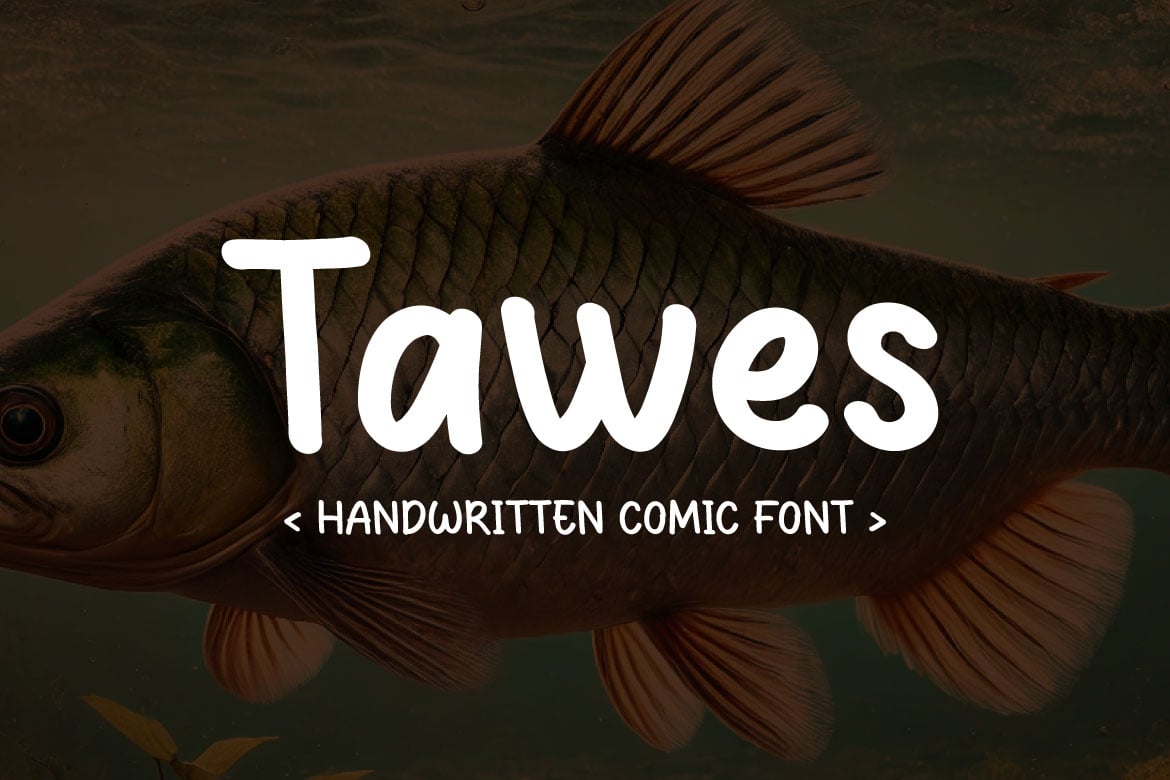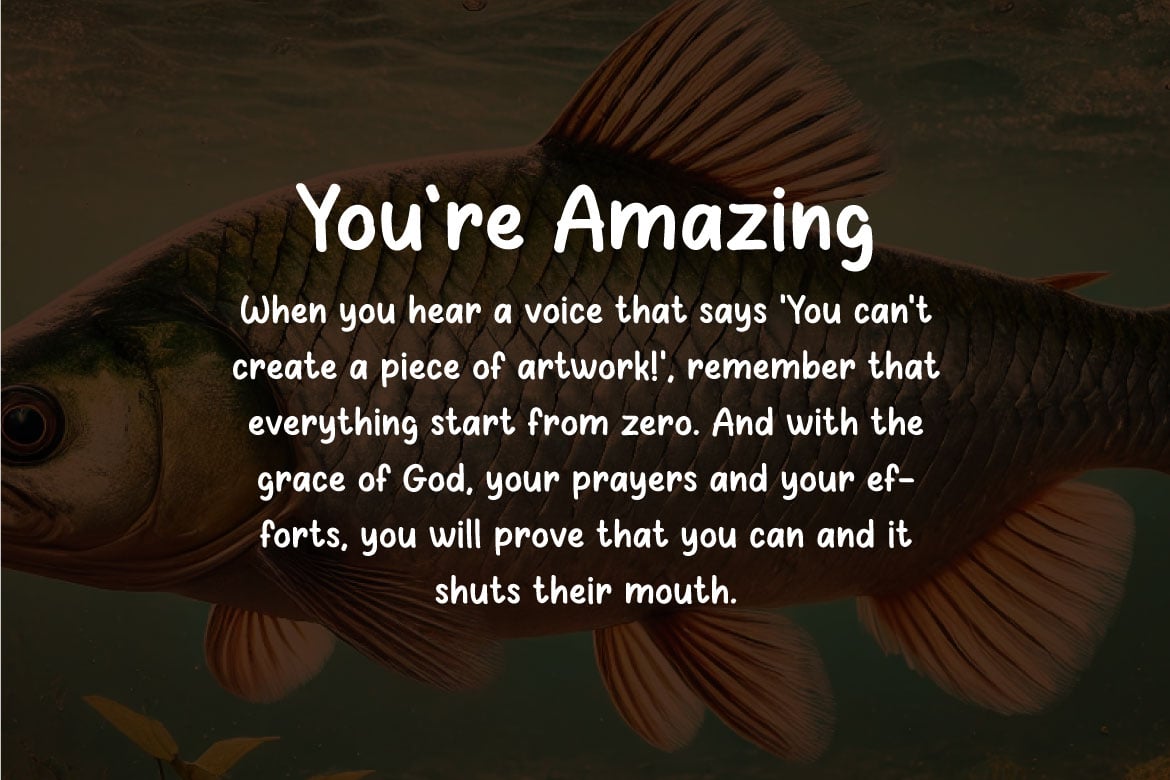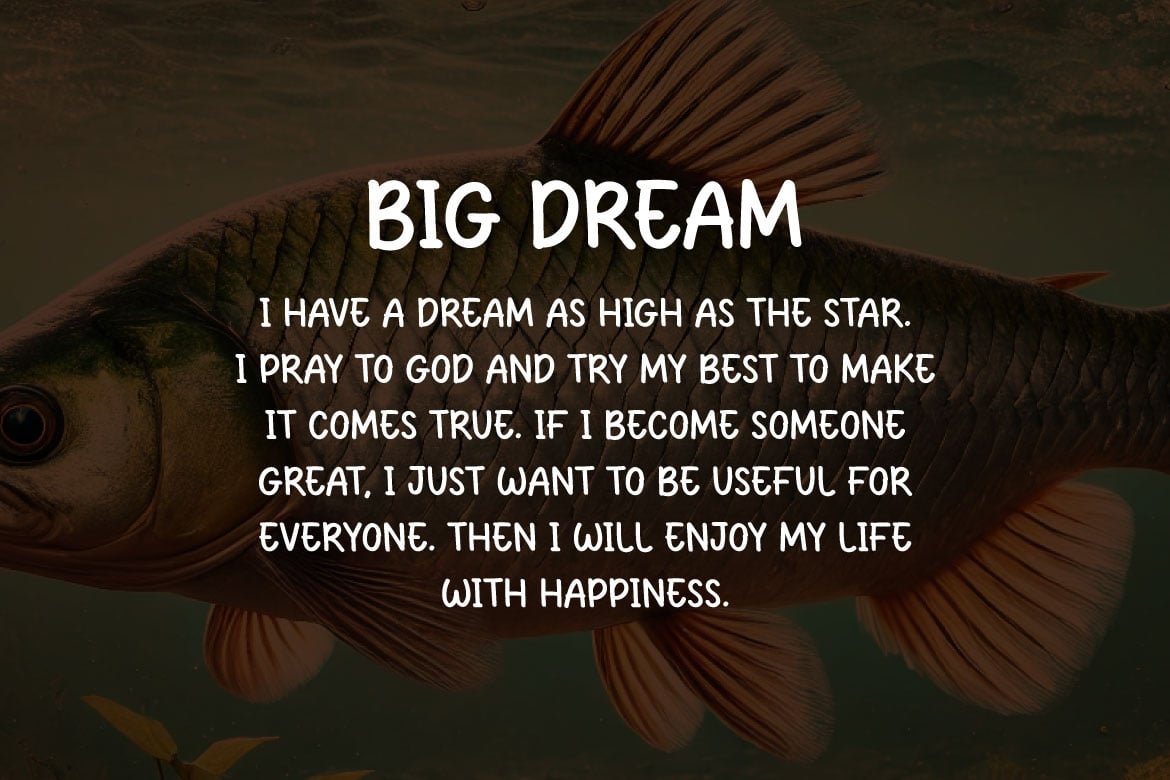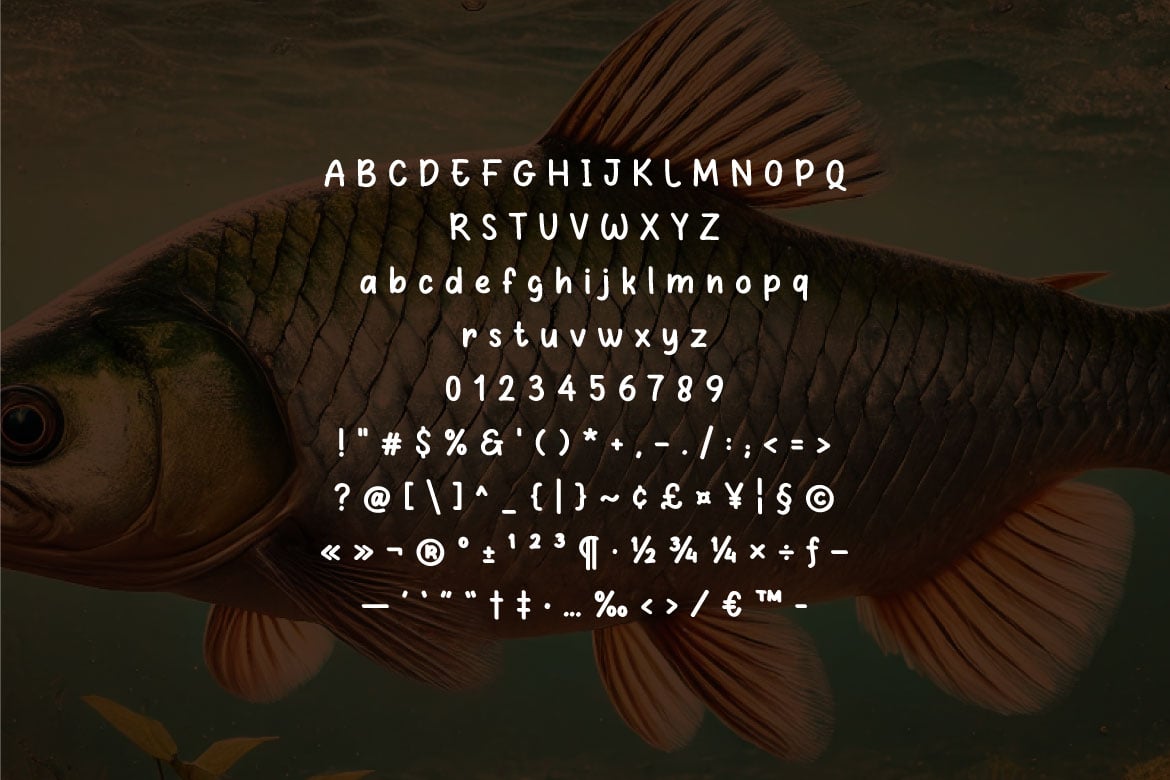
Tawes – Comic Font
Introducing our new Tawes – Comic Font, a perfect blend of fun, whimsy, and readability, designed to bring your creative projects to life. This font is meticulously crafted to emulate the spontaneous and playful nature of hand-drawn lettering, making it an excellent choice for comic strips, children’s books, posters, and any project that needs a touch of personality.